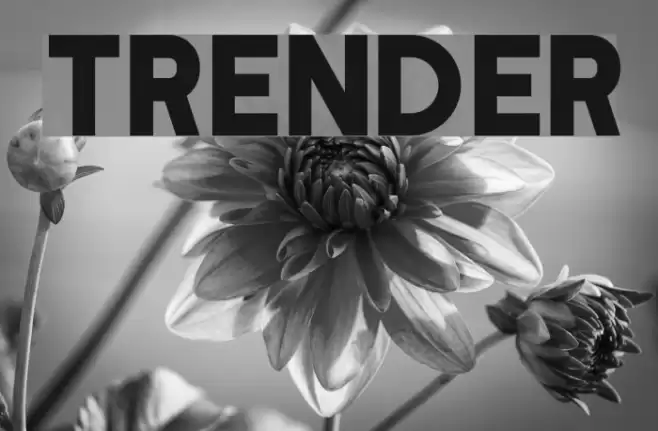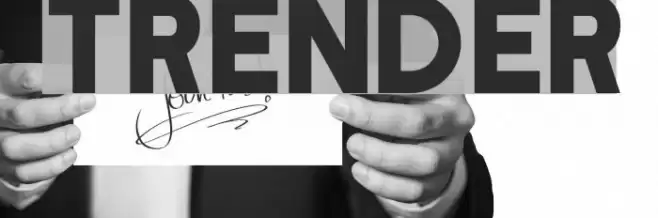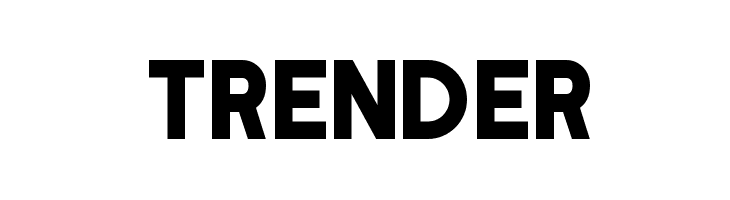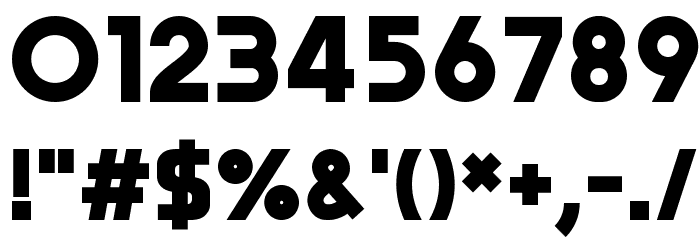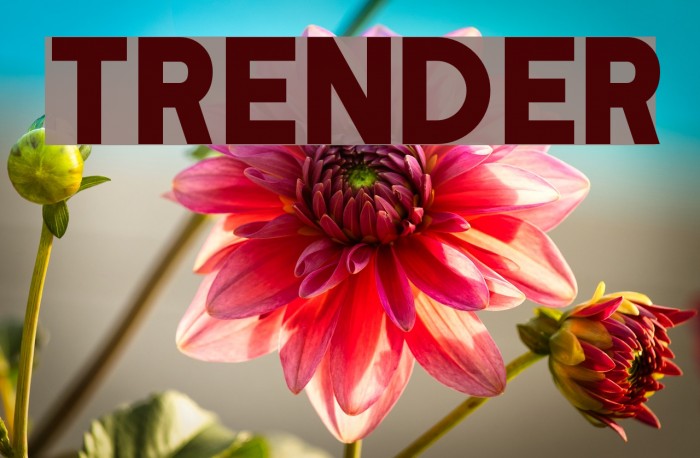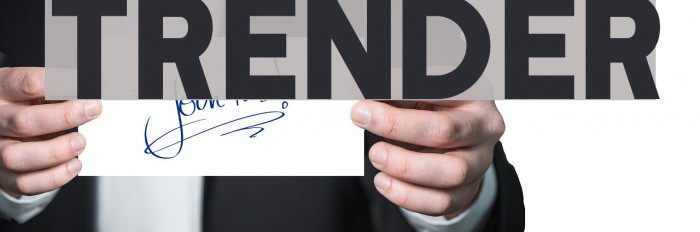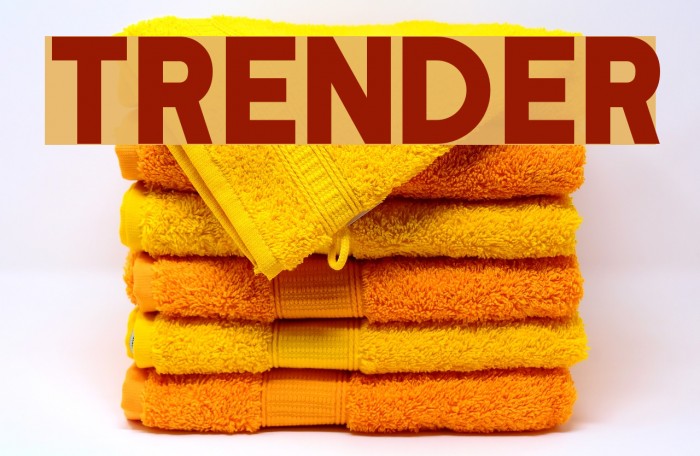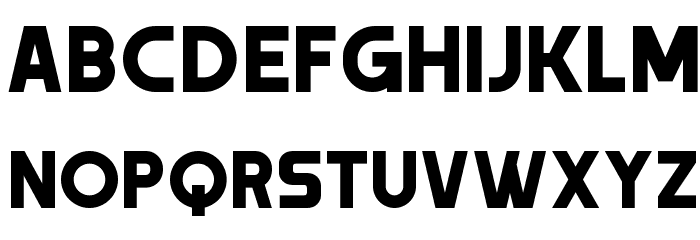
Trender Font
Trender Description
This font features a bold and geometric design with strong, clean lines and a modern aesthetic. The characters are uniformly thick, giving a sense of stability and strength. The uppercase letters are particularly striking, with a consistent height and width that create a cohesive look. The numbers and special characters maintain the same boldness, ensuring readability and impact. The overall style is contemporary, making it suitable for a variety of design projects that require a strong visual presence.
A bold, geometric font with a modern and cohesive design from Uncategorized fonts.
- Proposed Projects: Ideal for branding, headlines, posters, and any project requiring a strong, modern typeface.